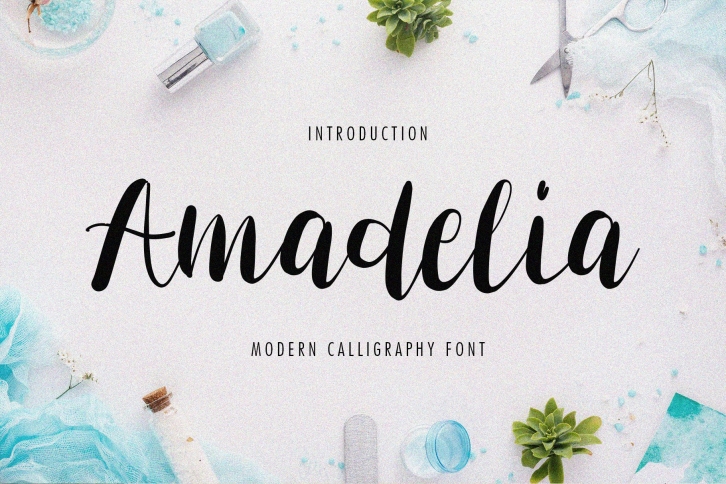
Amadelia Typeface is a trendy and unique font with an authentic style. It was designed by Boediman Studio and it's a great choice for creative people who need such a font. It was released on September 7, 2022 and the file size is 18.38 MB. Amadelia Typeface will add an organic vibe to any design idea!